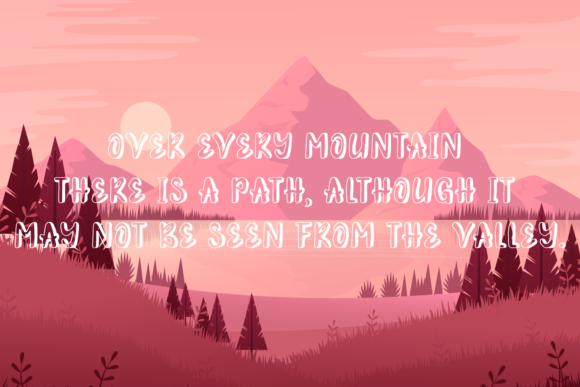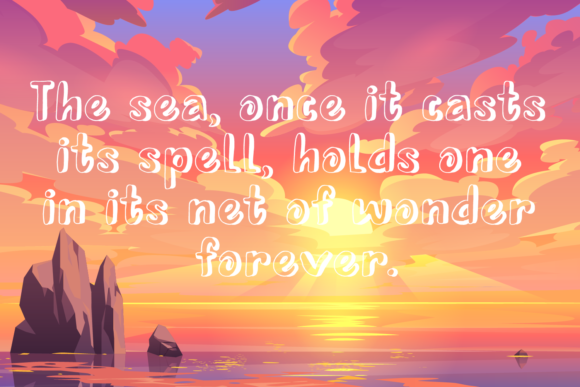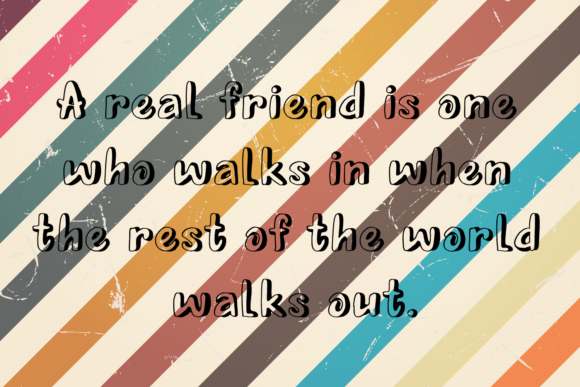
Introduction to Honey Mountain Font
Honey Mountain is a playful and magical display font.
Whimsical and a bit quirky, this font will brighten up each of your designs Add it confidently to your projects, and you will love the results.
Key Features of Honey Mountain Font
Why Choose Honey Mountain Font?
Honey Mountain Font offers exceptional quality and versatility, making it a valuable addition to your design toolkit. Whether you’re creating for personal projects or commercial use, Honey Mountain Font delivers professional results.